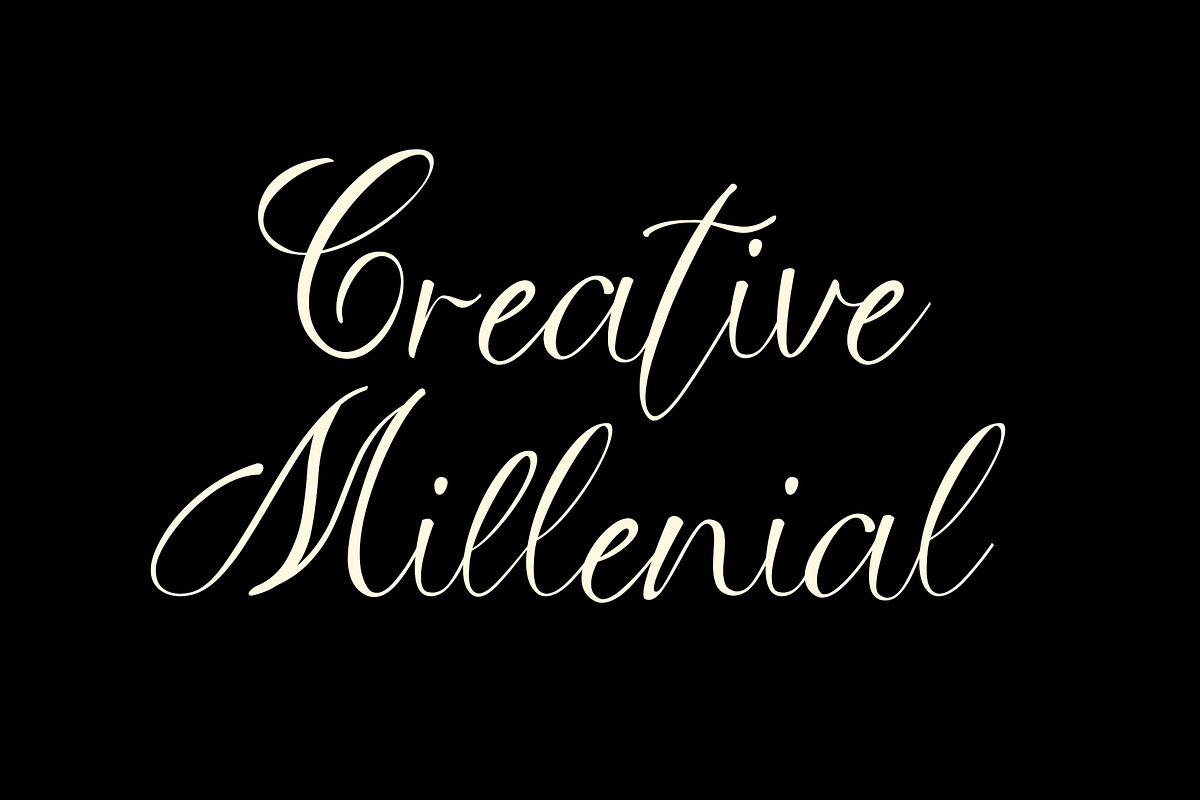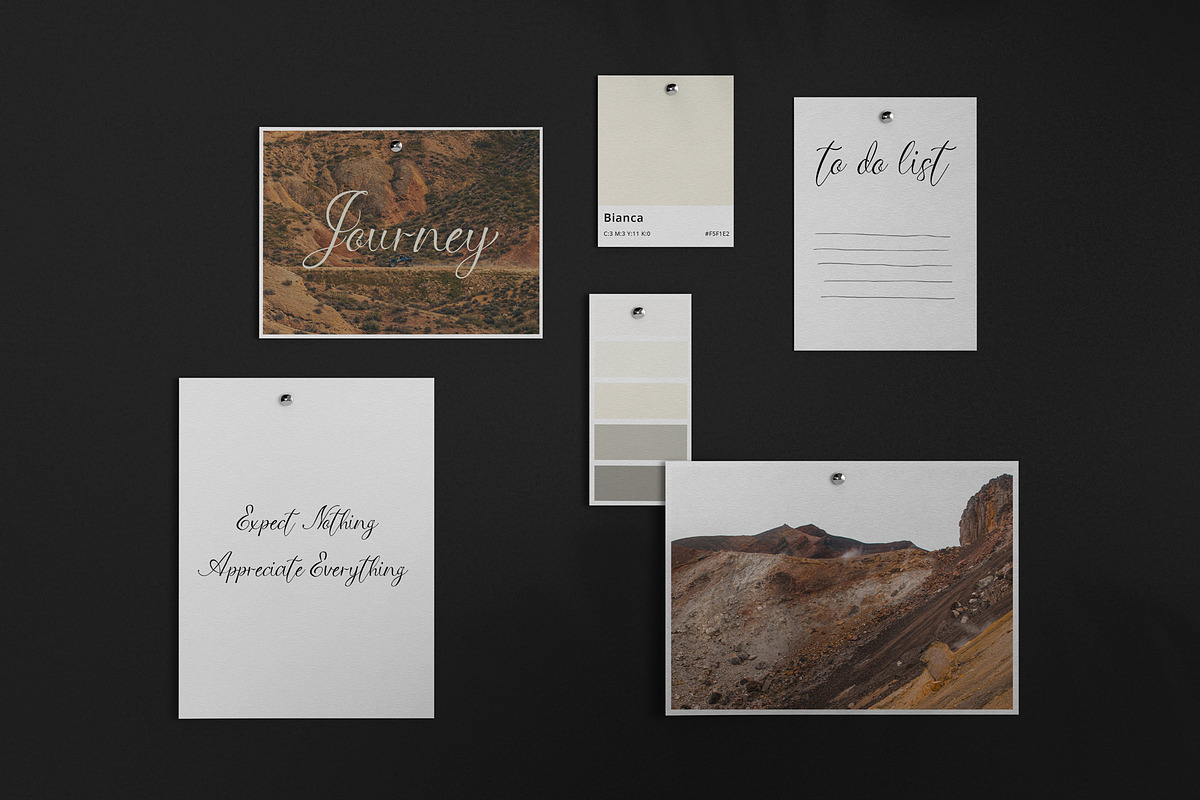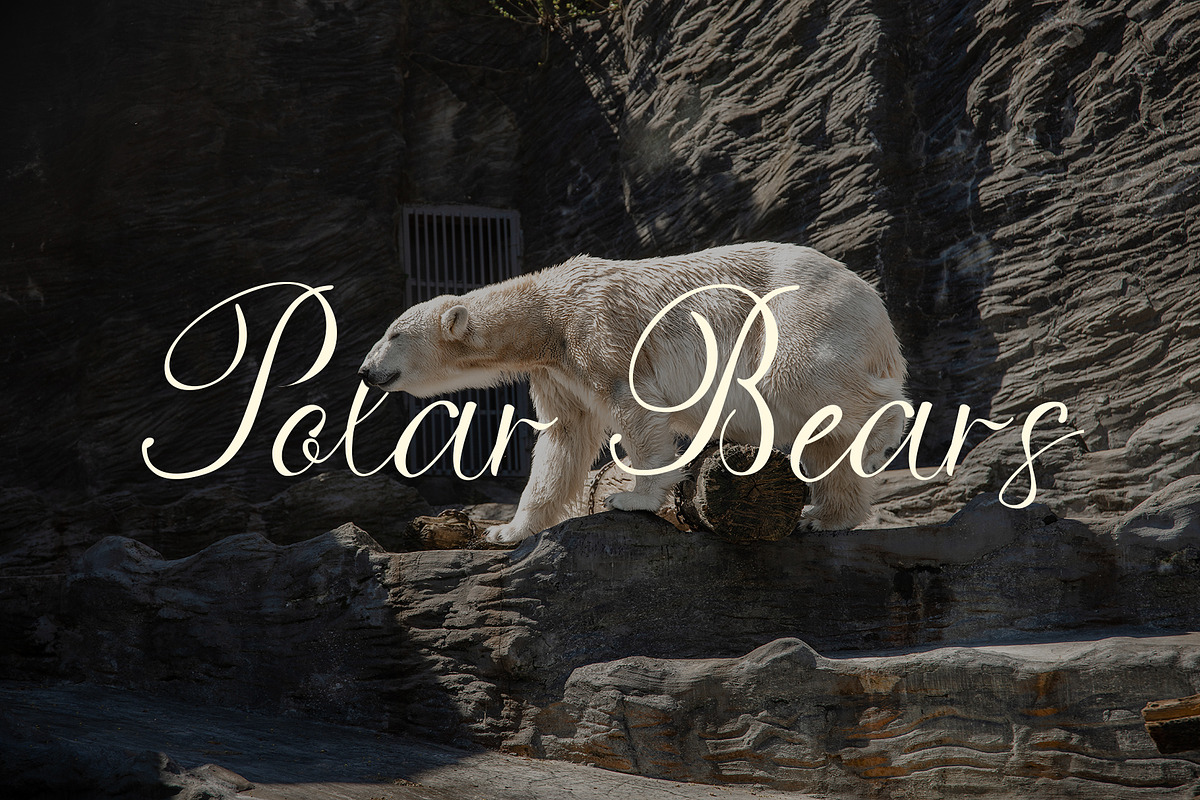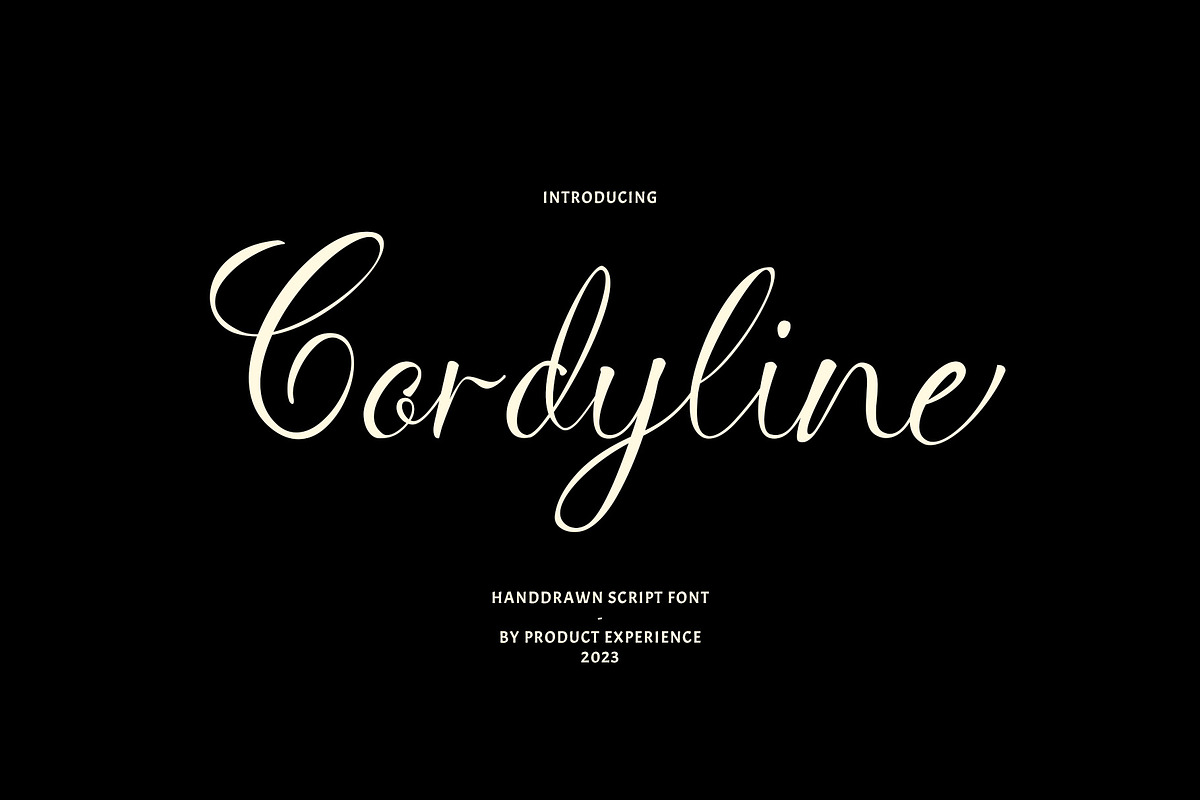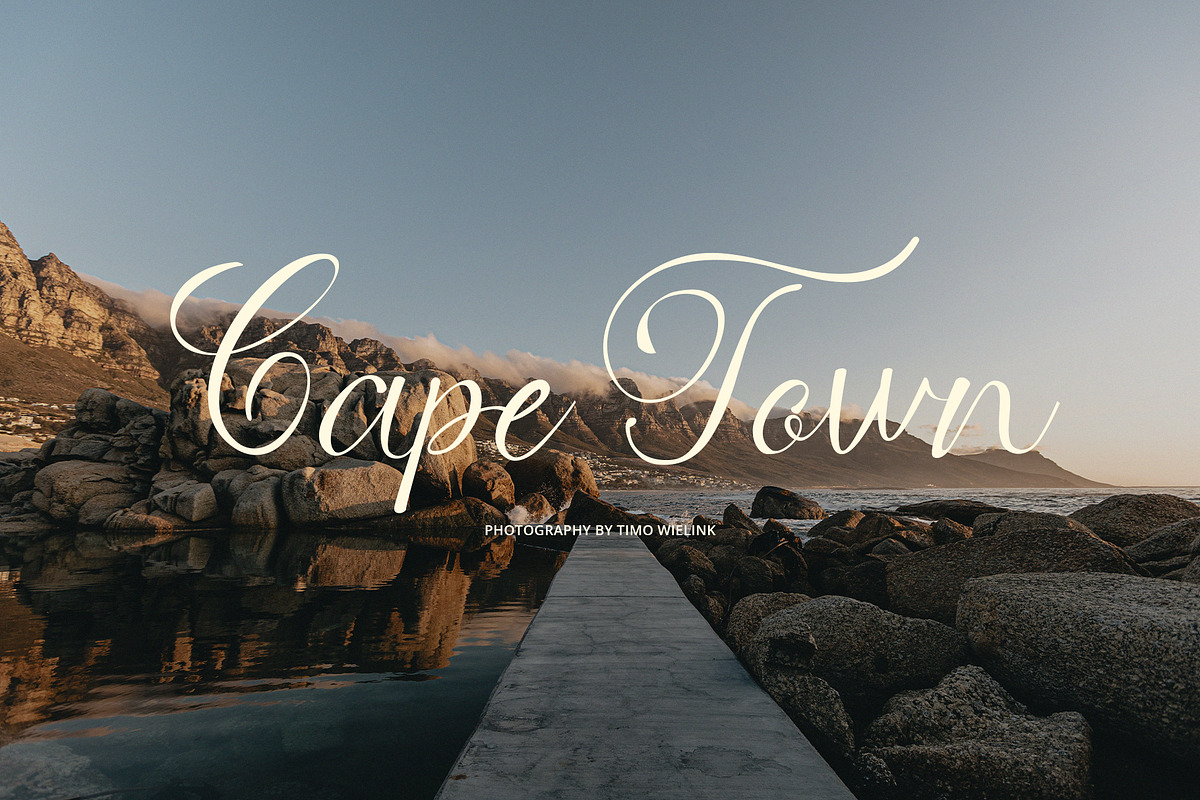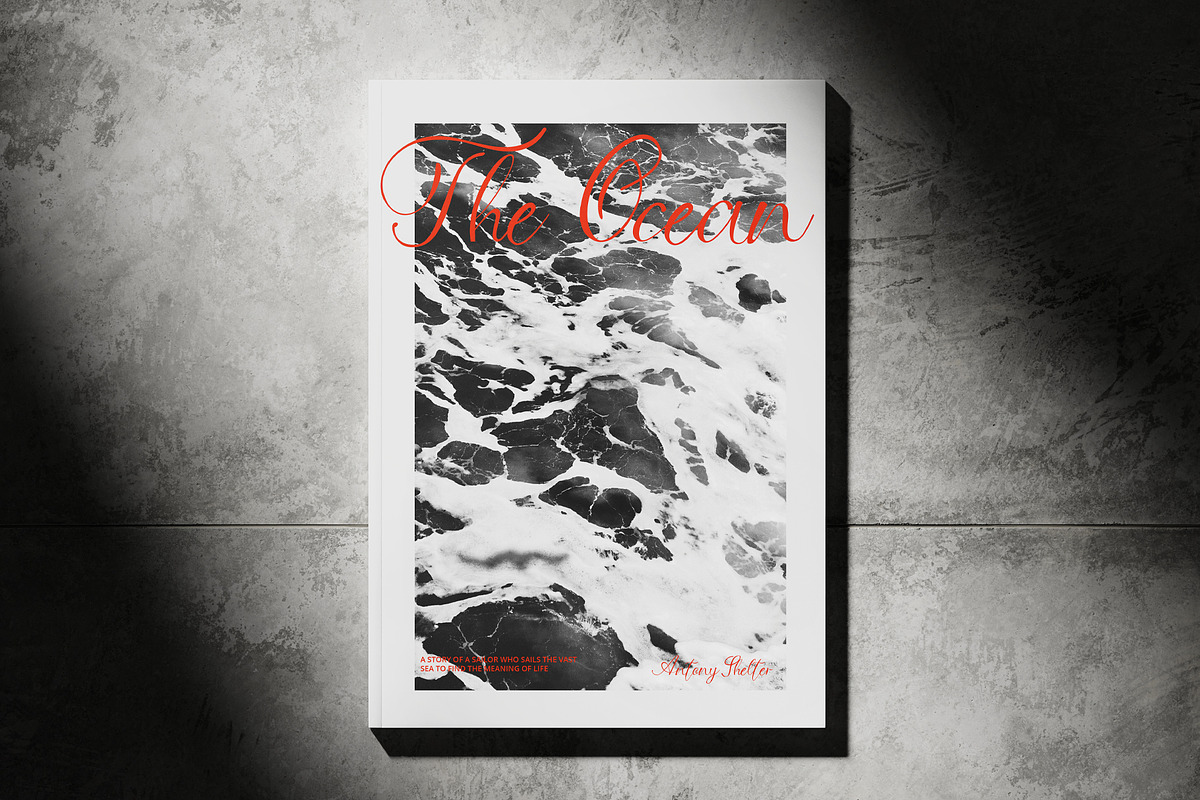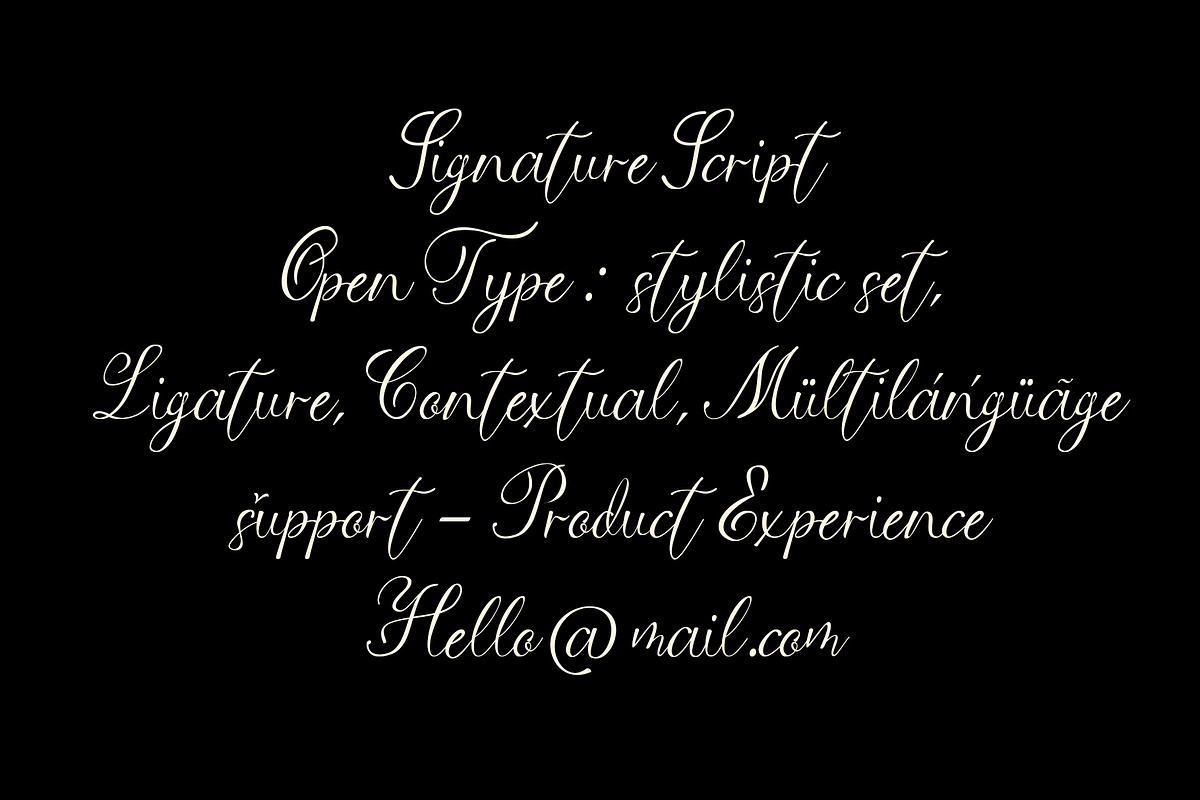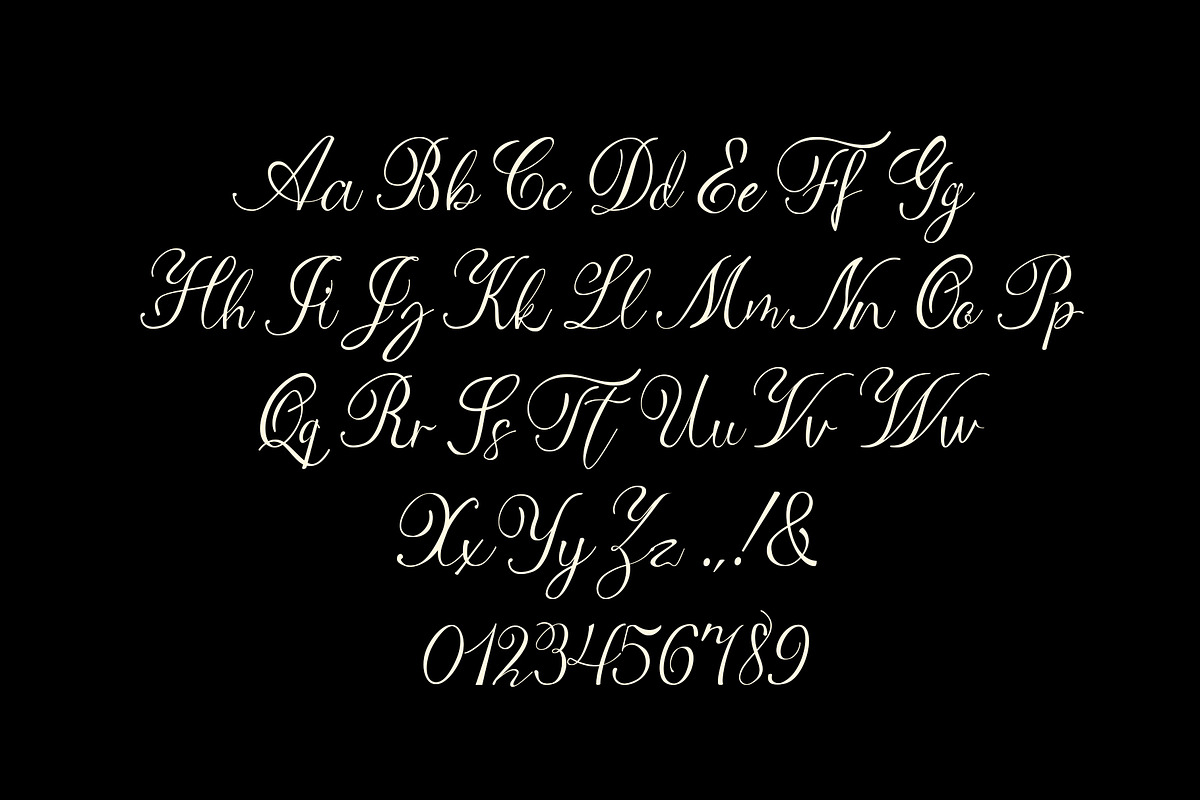
Cordyline - Handdrawn Script
Cordyline is a hand-drawn styled script font. This font is suitable for your design needs and can be combined with other fonts. besides this font is equipped with ligature, contextual, stylistic set and multi-language support. This font is perfect for your design needs such as branding, logo design, wedding invitations, decorations, social media design, book, magazine and more. to see all the characters you can use the glyph panel feature in the software you are using FEATURES:
- Total Glyph : 410
- Punctuation and Marks
- Contextual Alternative
- 90+ stylistic set & Ligatures